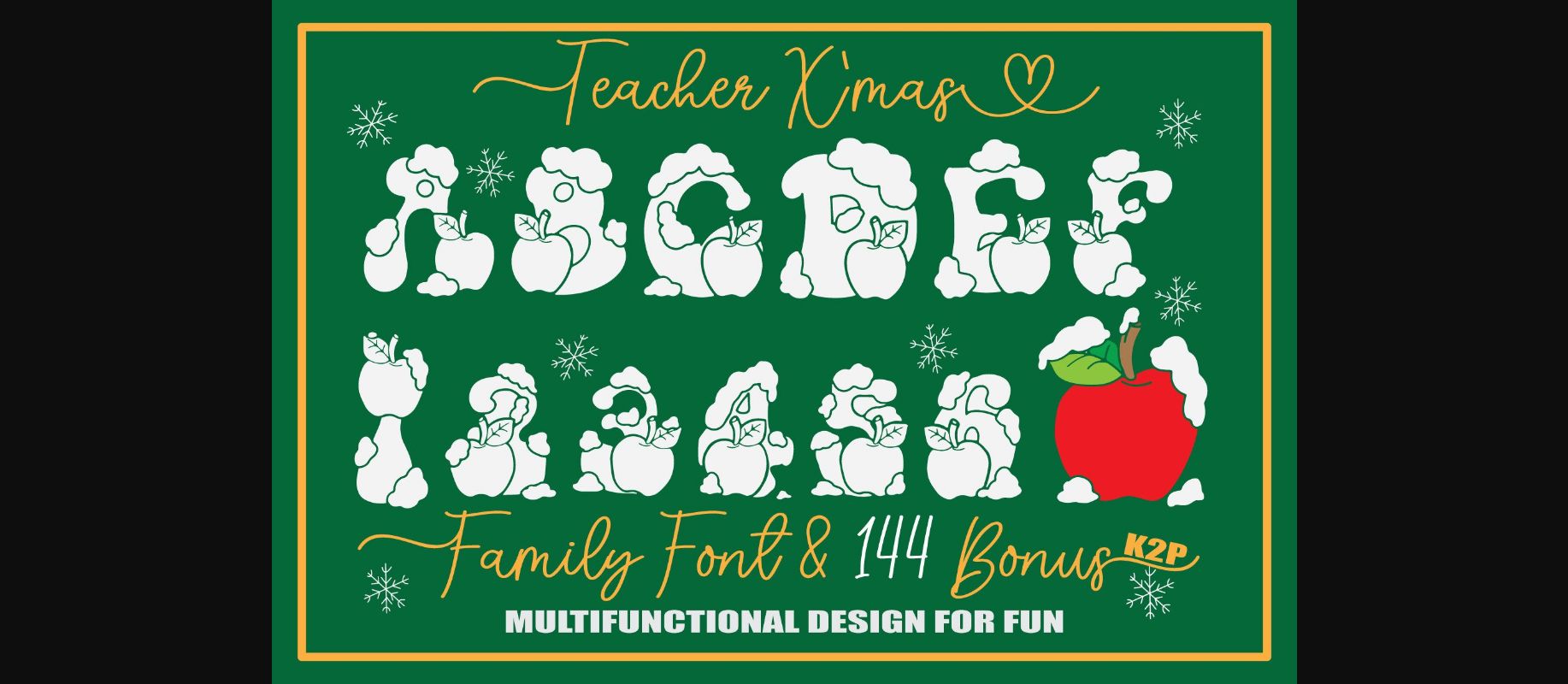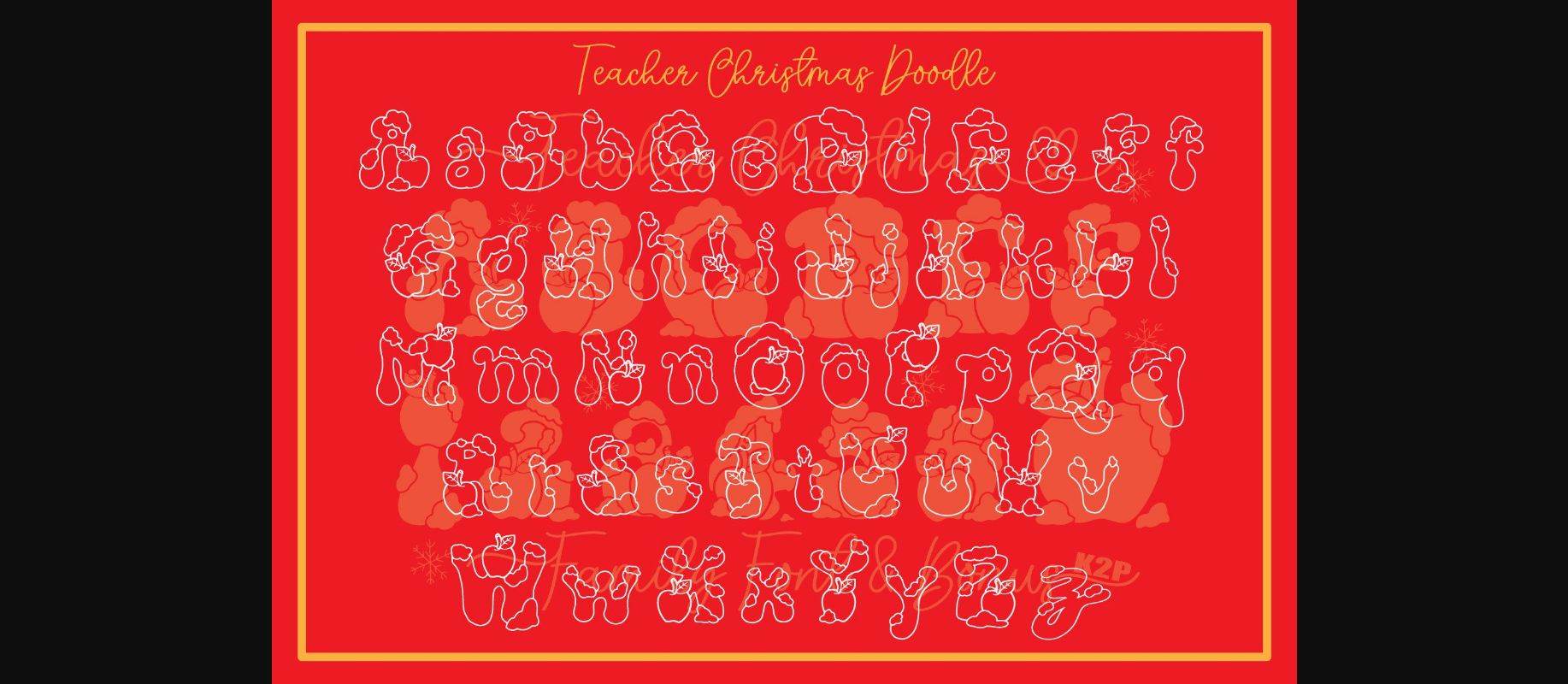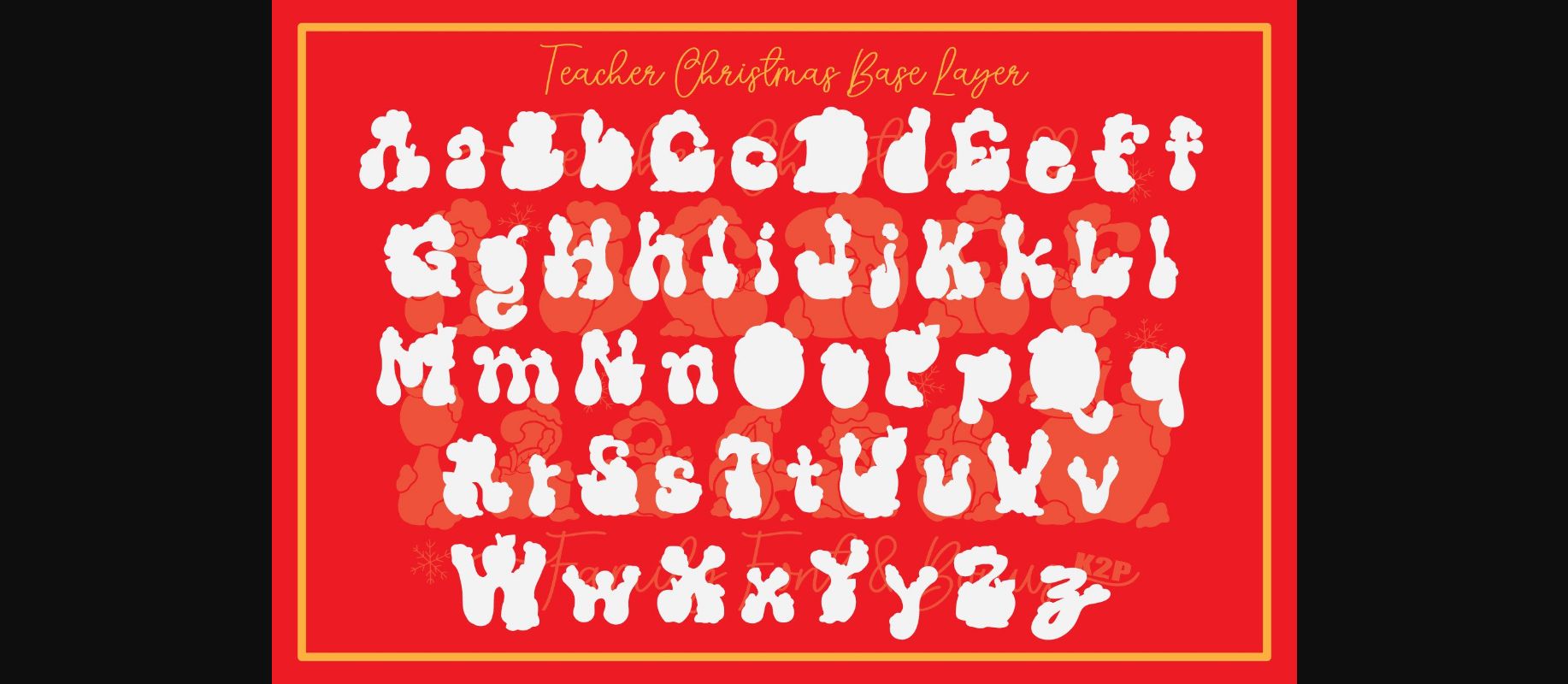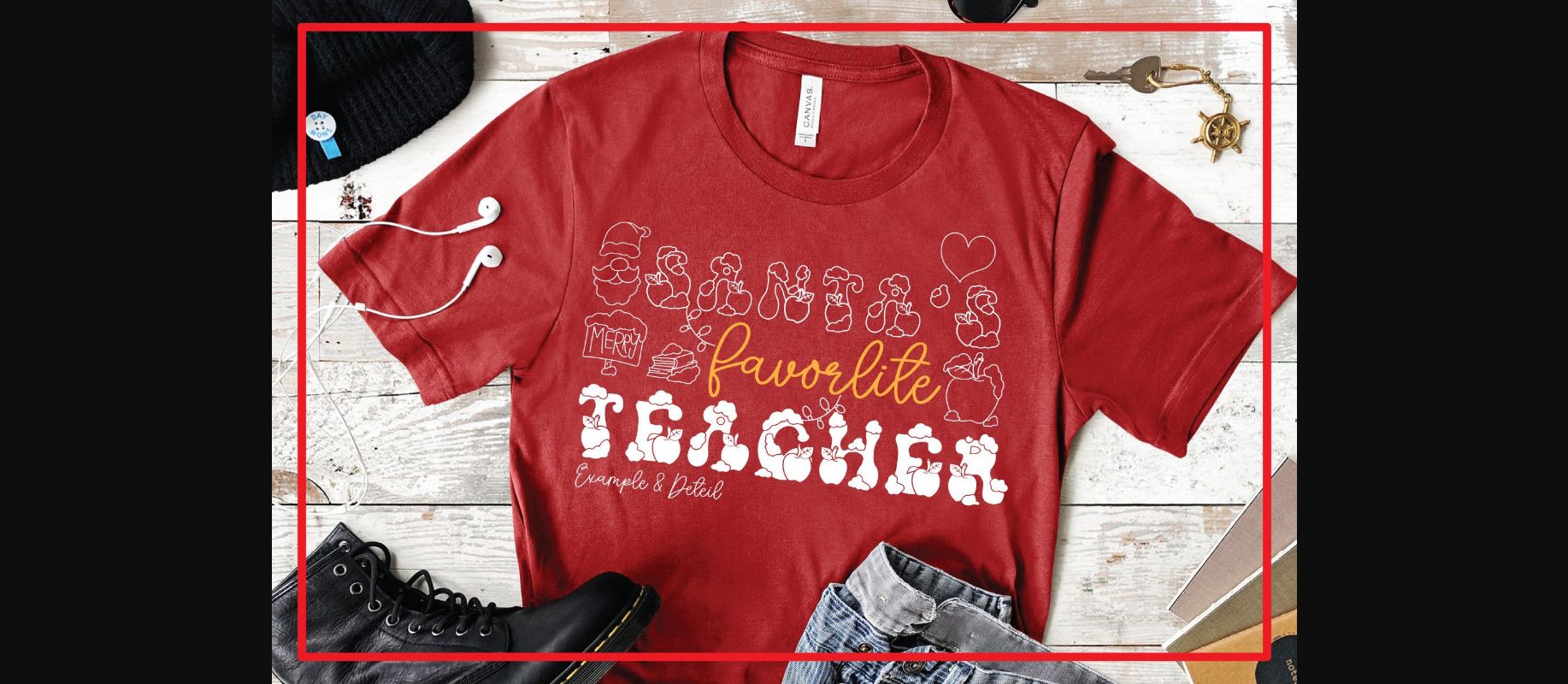
Teacher Xmas Font
About Teacher Xmas Font
Teacher Xmas is a fun, festive, and incredibly unique decorative font. It can be used for various design ideas, particularly those related to the Christmas Holiday.